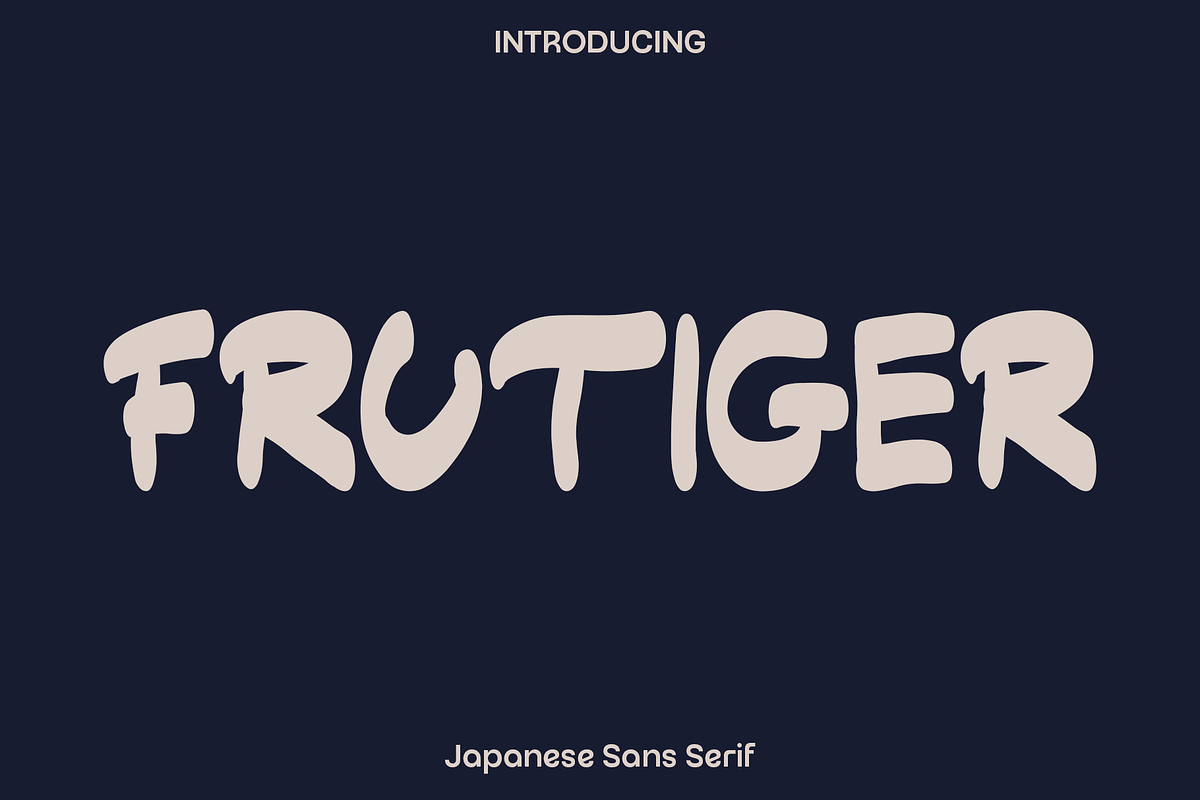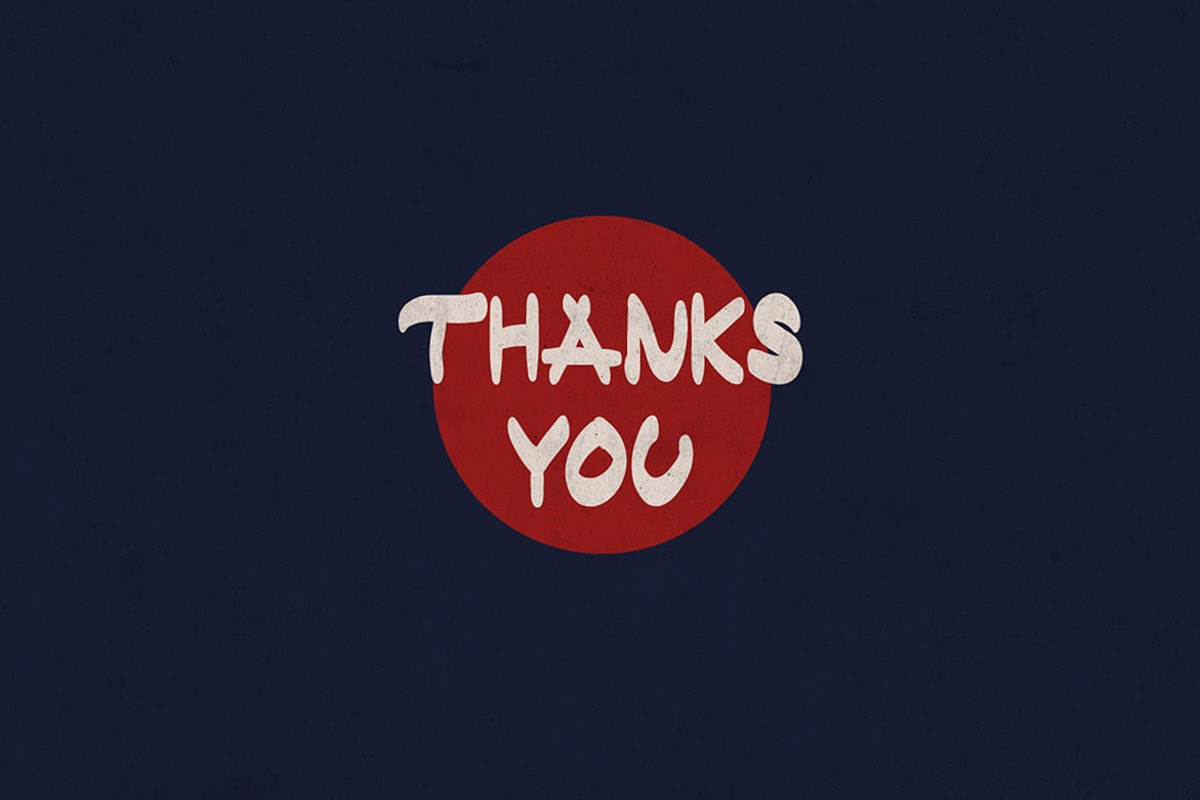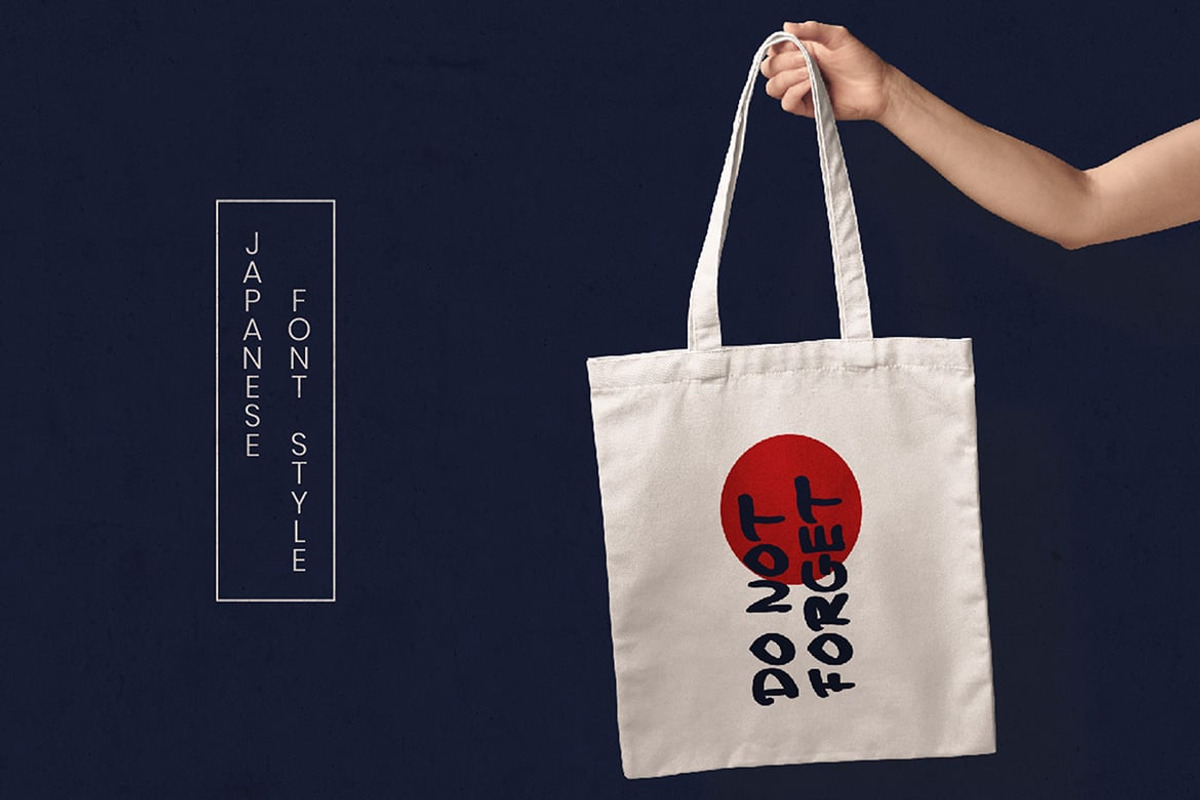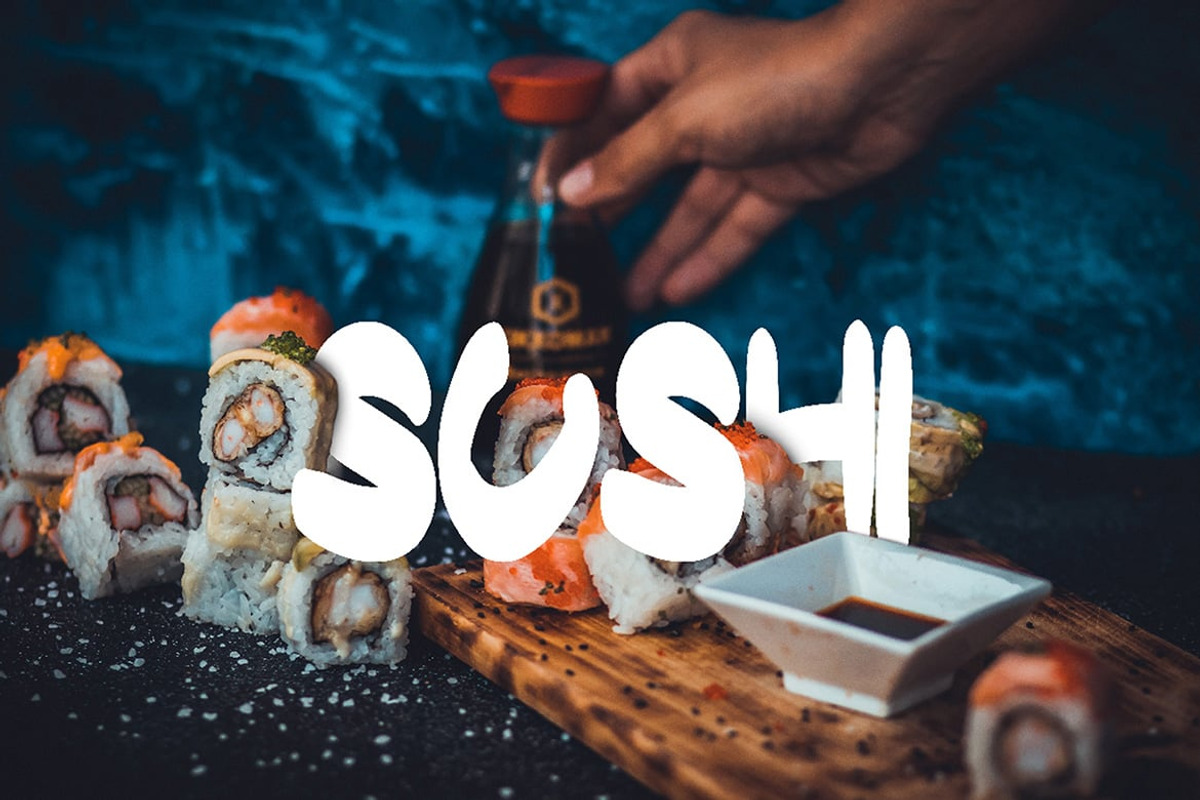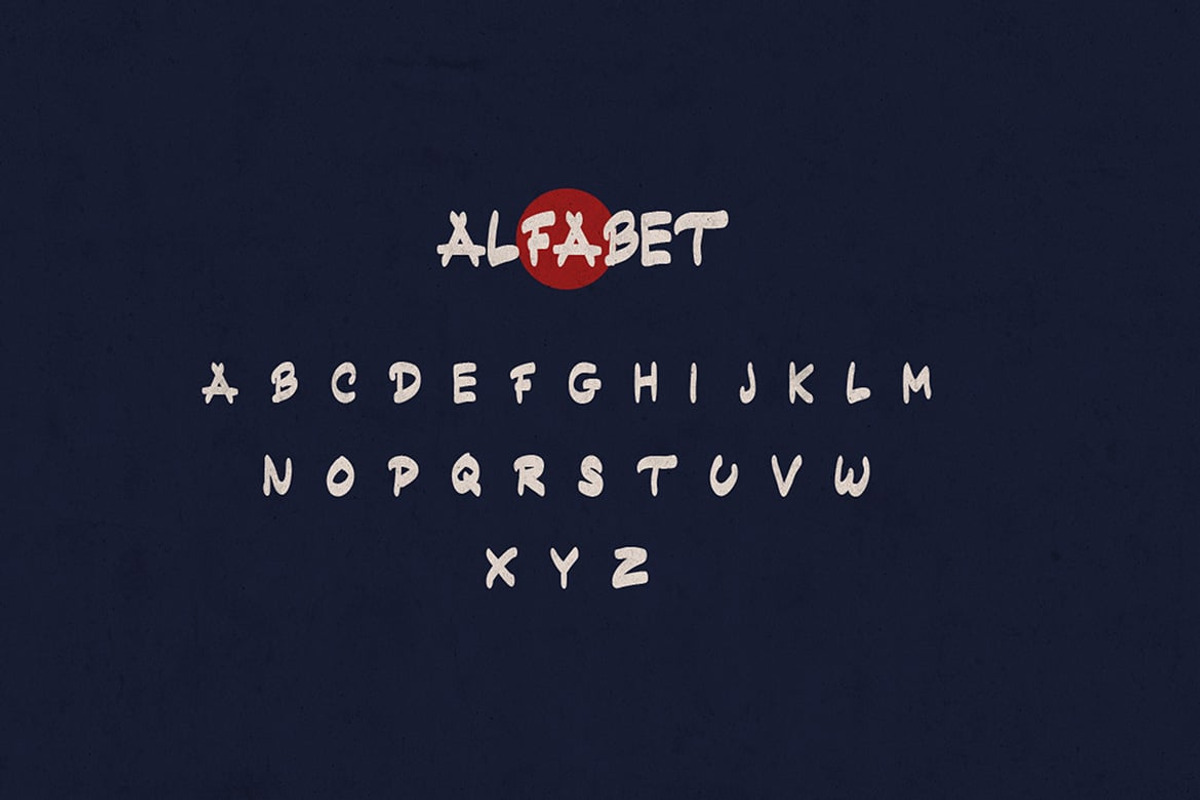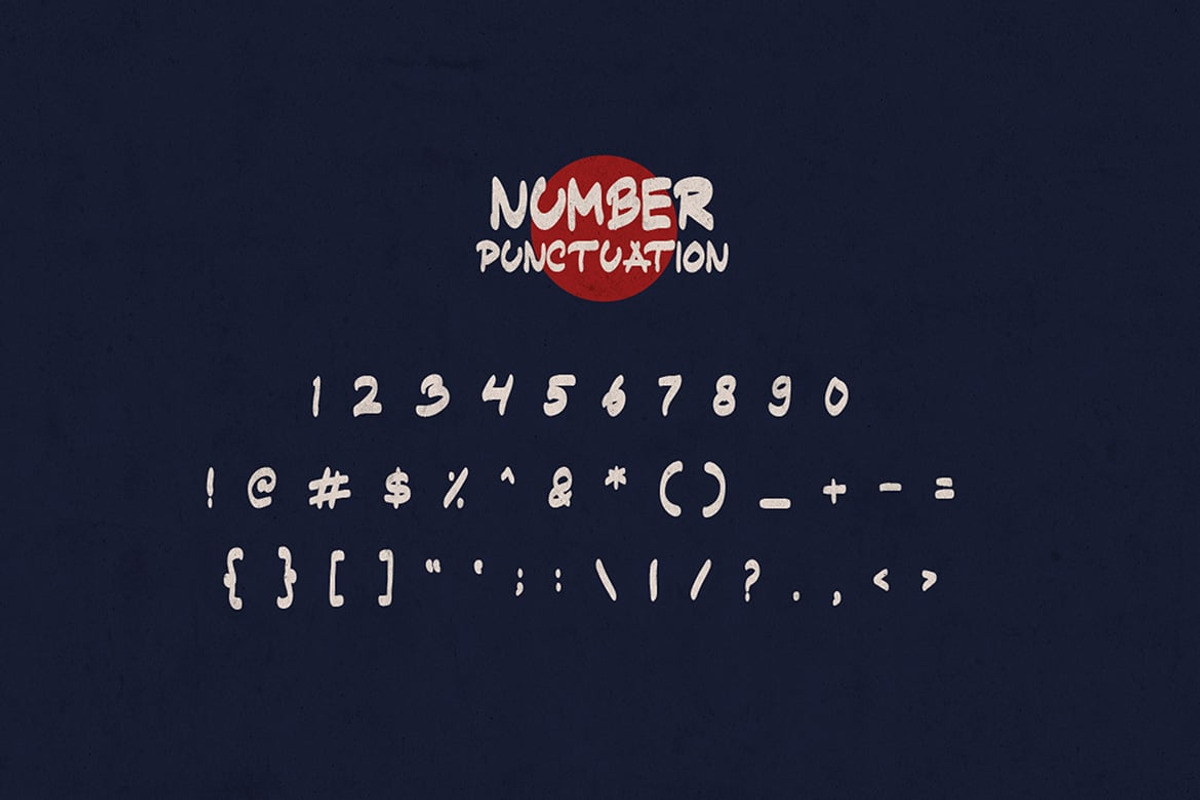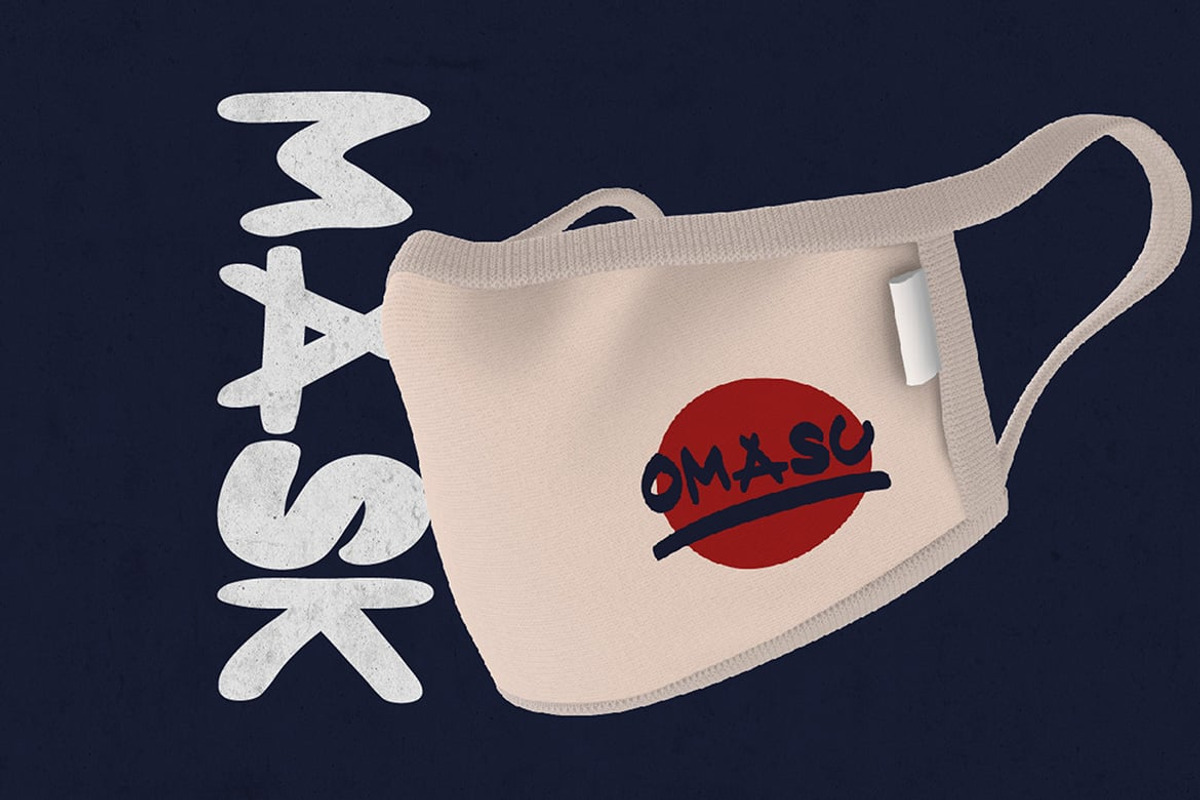
Frutiger - Japanese Sans Serif
Frutiger is a creative display font inspired by the beauty of Japanese culture and artistic typography. Designed with playful character shapes and culturally inspired details, Frutiger brings a unique and expressive atmosphere into every project. Its balanced combination of modern design and traditional Japanese inspired aesthetics creates typography that feels fun, artistic, and visually memorable.
Perfect for greeting cards, invitations, posters, book covers, baby clothing, branding, logos, quotes, social media graphics, presentations, and eye catching headlines, Frutiger adds charm and personality to both print and digital designs. The font carries a cheerful and creative spirit that helps transform simple typography into engaging visual art.
Frutiger was created for designers who want to explore cultural inspiration while maintaining versatility and readability. Its distinctive forms allow projects to stand out with originality while still feeling approachable and stylish. Whether used in playful branding or decorative editorial layouts, Frutiger delivers a creative touch that instantly enhances the mood of your designs.
The artistic style of Frutiger makes it ideal for creators looking to combine cultural aesthetics with modern creativity. It is a font that encourages imagination and helps bring unique visual ideas to life with elegance and fun.
Frutiger Font Features:
• Japanese inspired cultural display style
• Creative and playful letterforms
• Uppercase and lowercase characters
• Numerals and punctuation
• Perfect for invitations, posters, book covers, branding, and headlines
• Fun and artistic typography appearance
• Suitable for print and digital projects
• Versatile and visually engaging design aesthetic